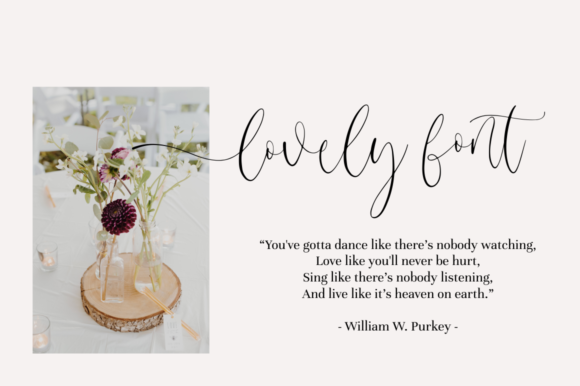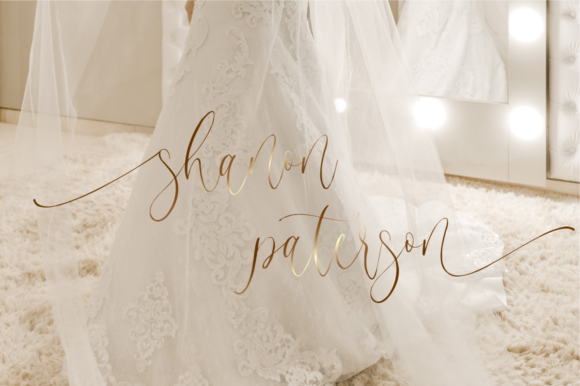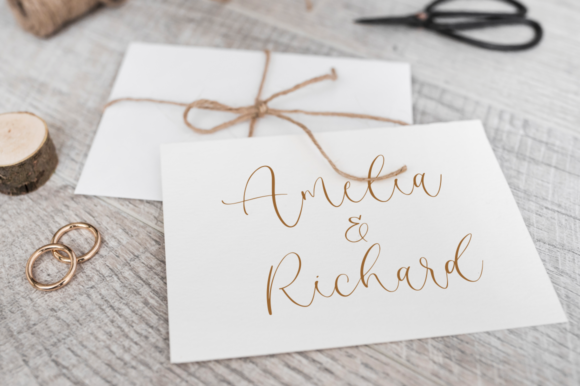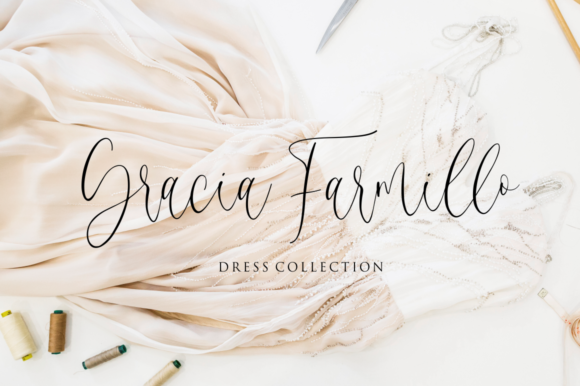
About Gilmour Font
Gilmour is a stylish and incredibly elegant script font. It looks stunning on wedding invitations, thank you cards, quotes, greeting cards, logos, business cards and every other design which needs a handwritten touch.